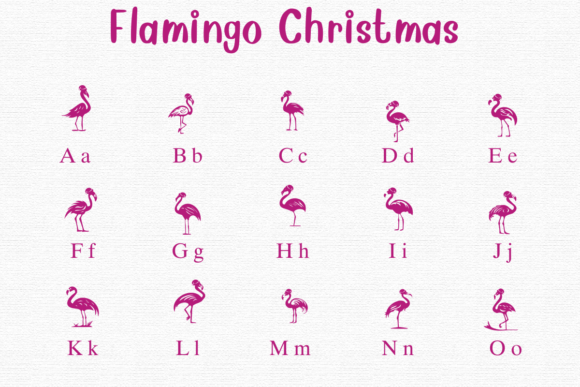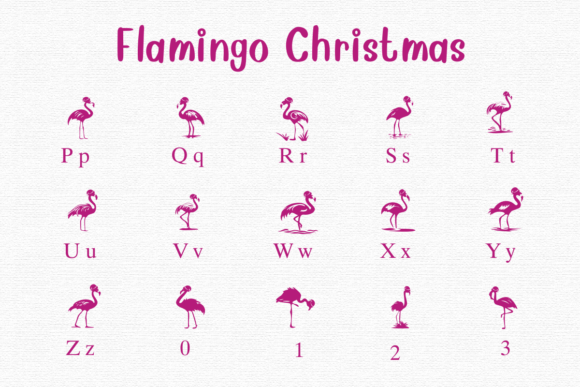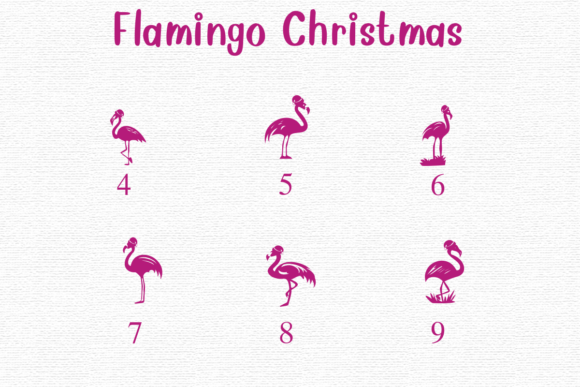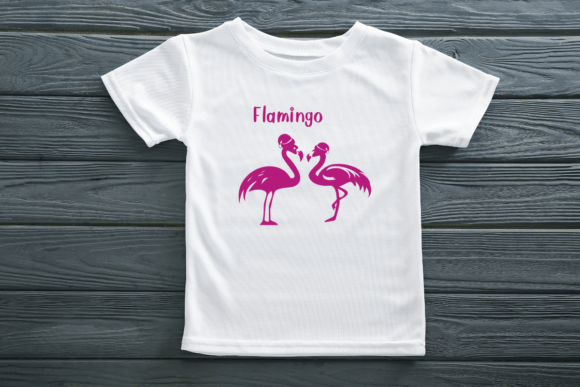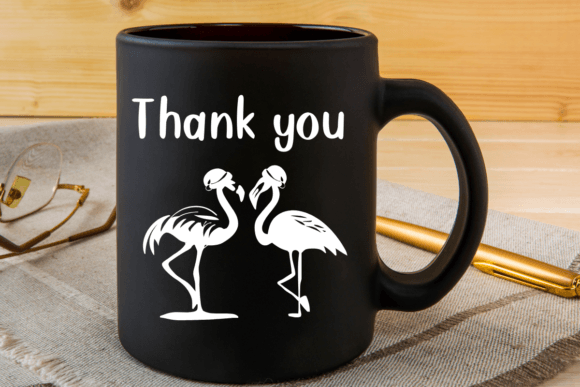
Introduction to Flamingo Christmas Font
Flamingo Christmas is a fun and festive font featuring images of pink flamingos.
Instead of letters, each character shows a cute flamingo with holiday decorations, like Santa hats or Christmas lights It’s perfect for adding a cheerful and unique touch to your Christmas cards and decorations.
Key Features of Flamingo Christmas Font